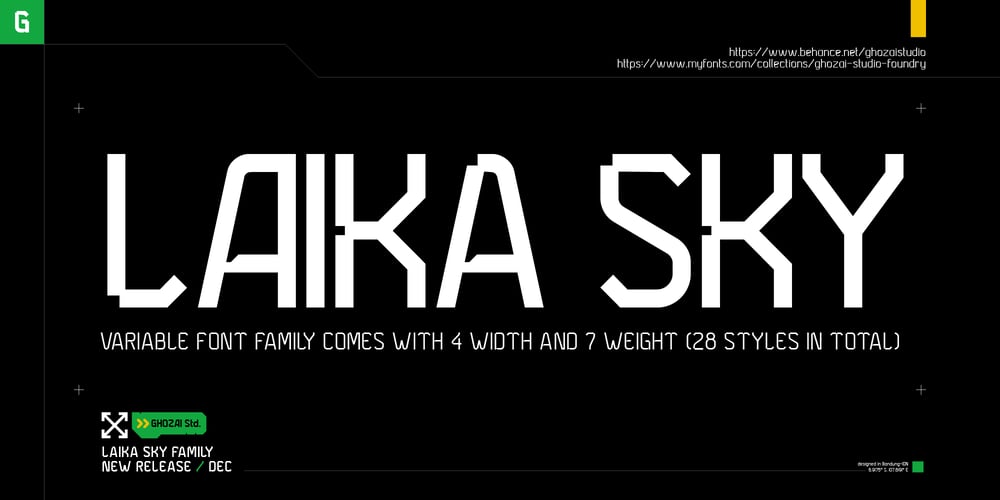
Laika Sky Font Family was designed by Manzur Ghozaali and published by Ghozai Studio. Laika Sky contains 28 styles and family package options. Laika Sky is a striking sans-serif font inspired by geometric shapes, crafted to deliver a polished look and a vibrant personality for all your design projects. The name comes from the first astronaut/space dog. This adaptable font shines in many applications, making it perfect for sport, action, futuristic, robotic, sci-fi-related, and mechanical themes. Laika Sky comes with a large style from condensed to wide and from extra light to extra bold. It gives flexibility to design your needs. Whether creating posters, headlines, logos, or branding materials, Laika Sky elevates your designs with its unique and powerful presence.